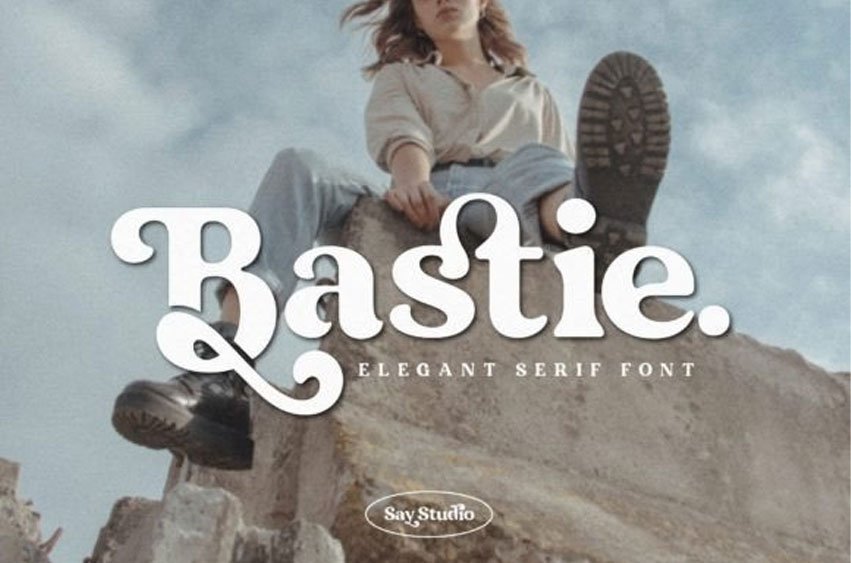
Bastie Font is an elegant and stylish serif font. Its sophisticated and unique style will transform your project into a true standout. Add it confidently to your creative ideas, and you will love the results.